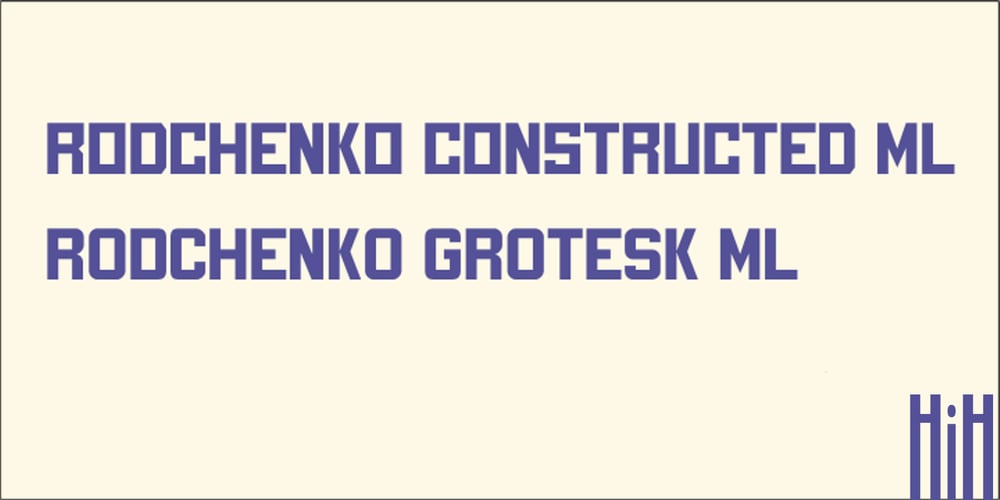
Rodchenko Constructed ML Font Family was designed by Alekandr Rodchenko and published by HiH. Rodchenko Constructed ML contains 4 styles and family package options. RODCHENKO CONSTRUCTED ML and RODCHENKO GROTESK ML One of the most creative minds in the modern Russian avant garde, Aleksandr Rodchenko was one of the leaders of Constructivism during the 1920s. Herbert Spencer includes Rodchenko in his book Pioneers of Modern Typography. Rodchenko began designing posters in 1923. The Soviet Union was young and many, including Rodchenko were fired with revolutionary zeal and idealism. He believed that art should be functional, practical and without adornment. Many others swam in the same stream and arrived at pretty much the same place: Schwitters, El Lissitzky, van Doesburg, Bayer and Tschichold working in the West; Klutsis, Levinsky, Gan, and others working in the Soviet Union. Earlier, similar typefaces include Baltimore Geometric ML and Teutonia — both digitized by HiH Retrofonts. Rodchenko Constructed ML and Rodchenko Grotesk ML are two sans-serif typefaces with both Roman and Cyrillic alphabets. They are based on the lettering Rodchenko used on his posters during the 20s. Sometimes the letters were squared off, as in Rodchenko Constructed ML. Other times, the outside corners were rounded, as in Rodchenko Grotesk ML. Both are bold and direct, intended for display work designed to convey a bold, direct message. Features: 1. Glyphs for the 1250 Central Europe, the 1251 Cyrillic, the 1252 Western Europe, the 1254 Turkish and the 1257 Baltic Code Pages. 2. Total of 424 glyphs. 3. 61 kerning pairs. 3. OpenType GSUB layout features: ornm, salt, kern 4. Tabular Numbers 5. Several optional bullets 6. Historical ornamental political symbols The zip package includes two versions of each font at no extra charge. There is an OTF version which is in Open PS (Post Script Type 1) format and a TTF version which is in Open TT (True Type)format. Use whichever works best for your applications.